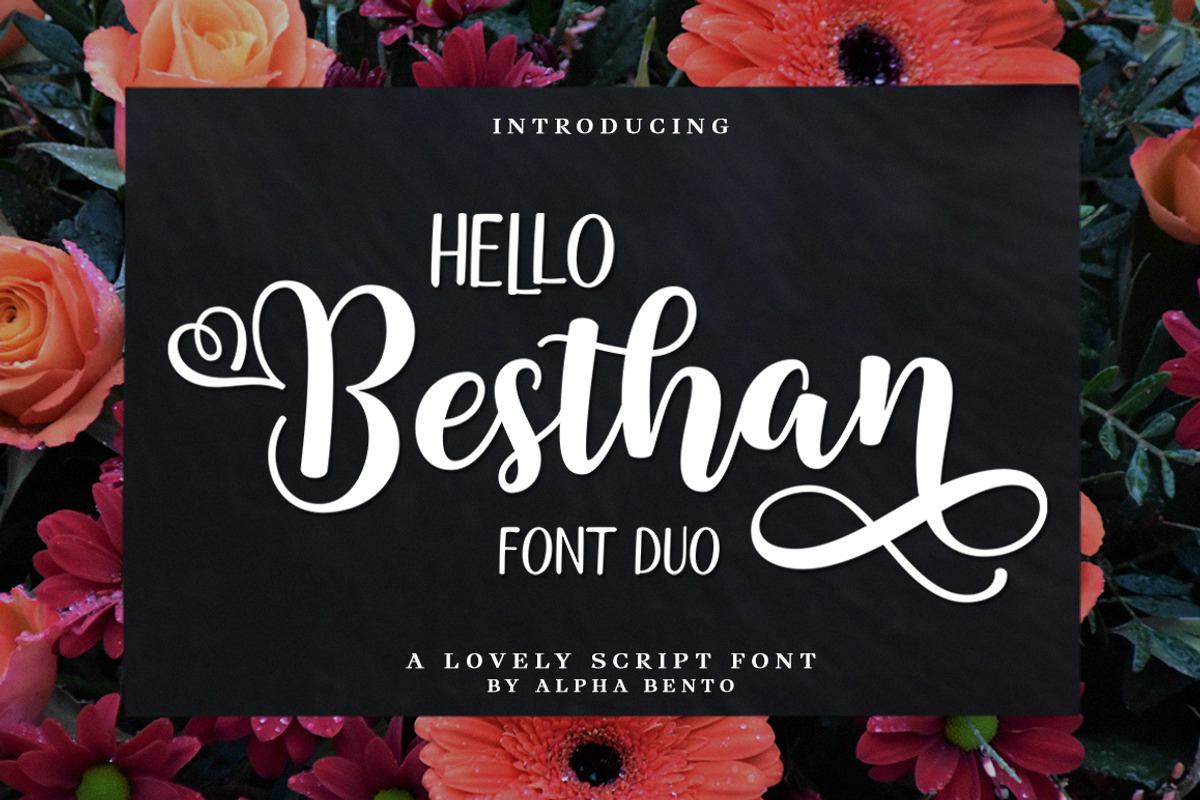
Hello Besthan Font Duo Free Download is a beautifully crafted combination of a modern script and a clean sans-serif typeface, designed to work harmoniously together. Perfect for branding, wedding stationery, logos, social media graphics, and packaging, this versatile duo adds a personal and professional touch to any design project.
The script font brings a handwritten elegance with smooth, flowing lines, while the sans-serif companion adds balance and clarity. Whether you're aiming for a romantic aesthetic or a clean, modern feel, Hello Besthan gives you the flexibility to express your vision with style.
Elevate your creative projects with the charm and harmony of Hello Besthan.